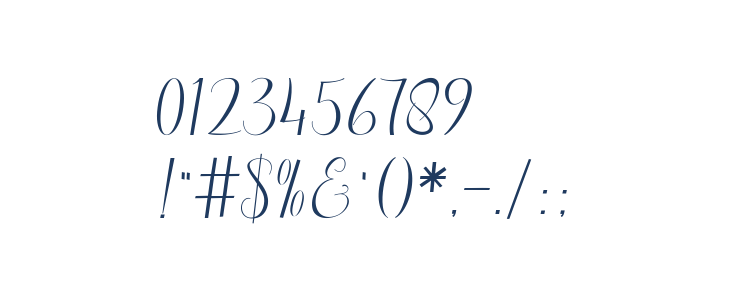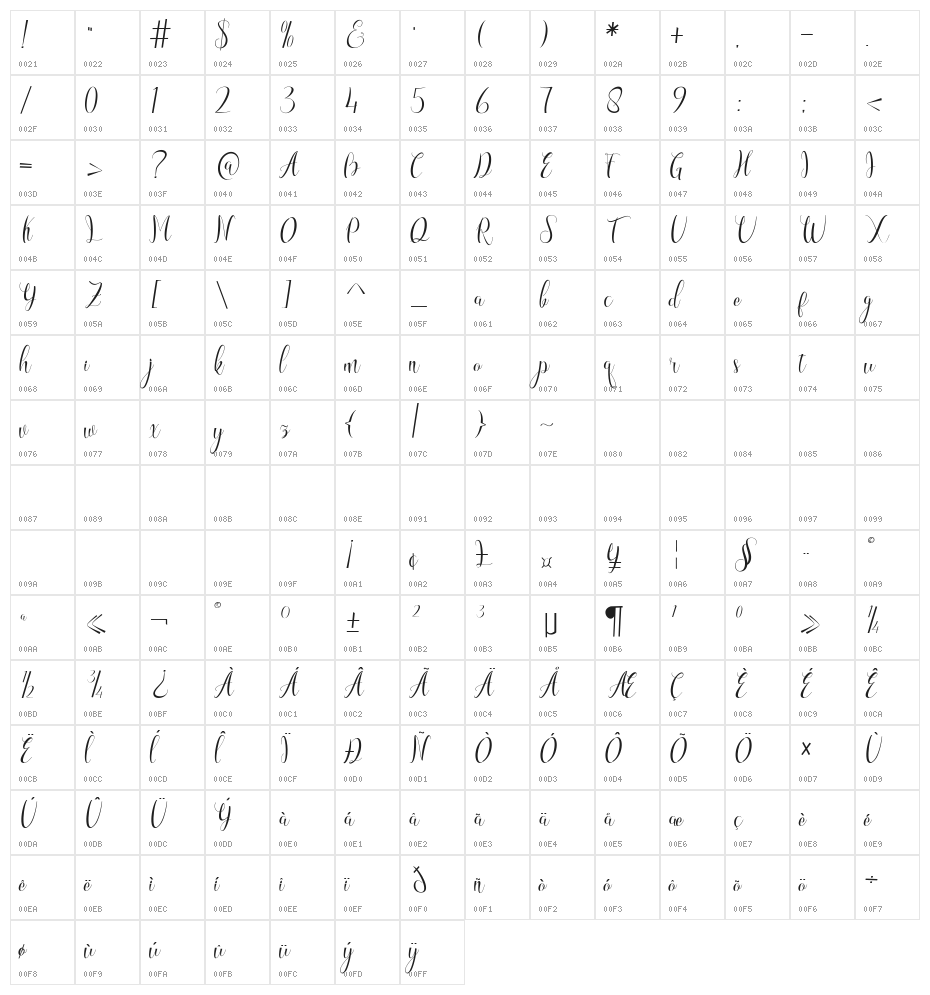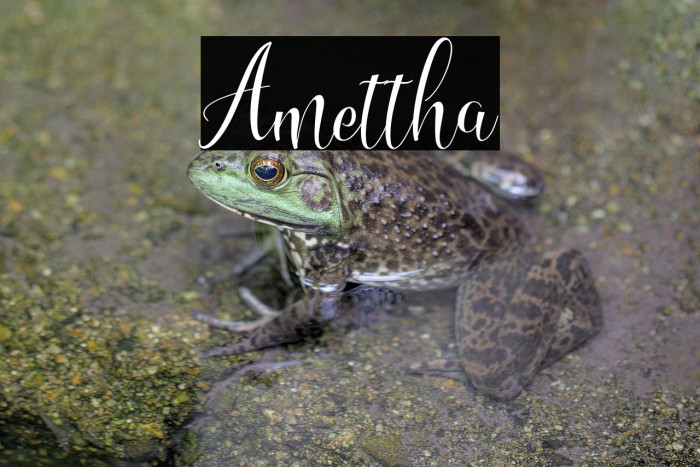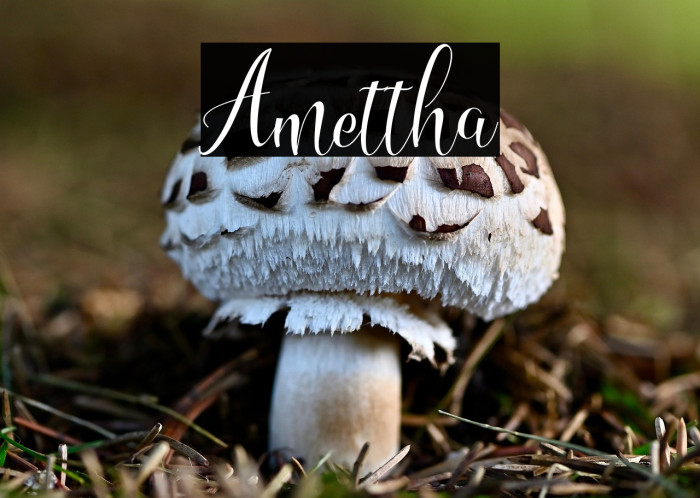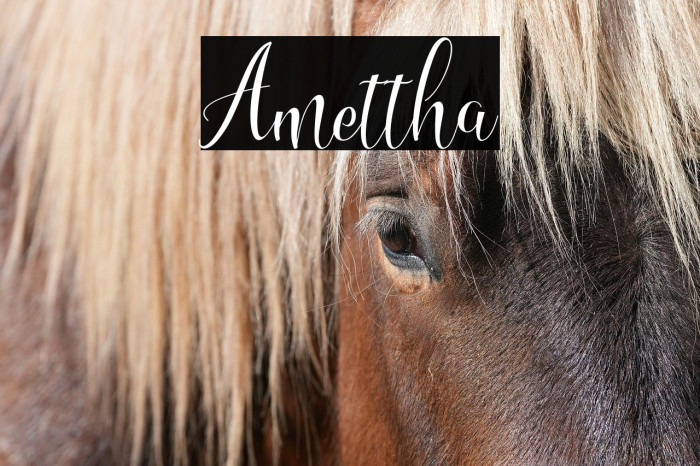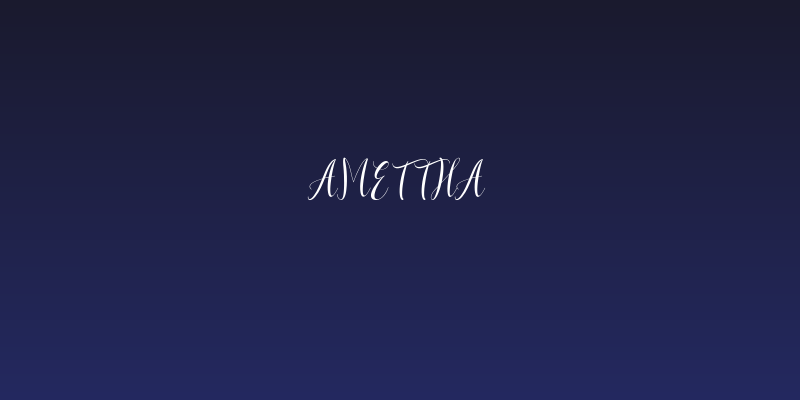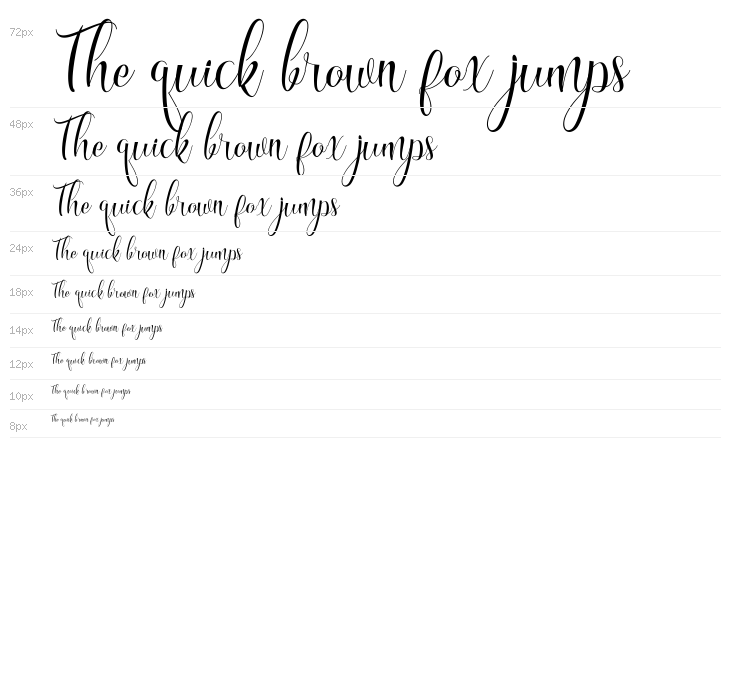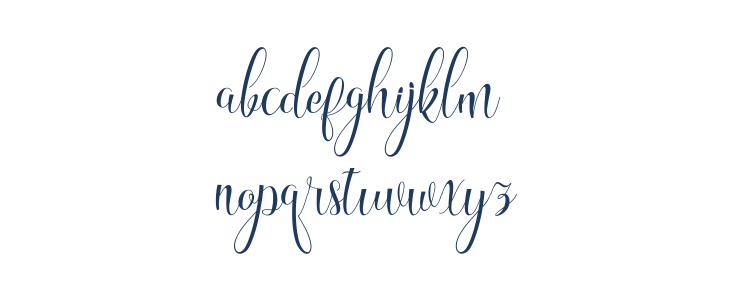
Amettha Font
Amettha Description
This elegant script font features flowing, interconnected letterforms that exude a sense of sophistication and grace. The uppercase letters are tall and slender, with delicate loops and swashes that add a touch of flair. The lowercase letters maintain a consistent style, with smooth curves and a slight slant that enhances readability. Numbers and special characters are designed to complement the overall aesthetic, maintaining the same fluidity and elegance. This font is perfect for projects that require a personal, handwritten touch, such as invitations, greeting cards, and branding materials.
| Overall Style | Elegant, Decorative |
| Use Case | Headlines, Invitations, Branding |
| Proposed Projects | Ideal for wedding invitations, elegant branding, personalized stationery, and decorative signage. |